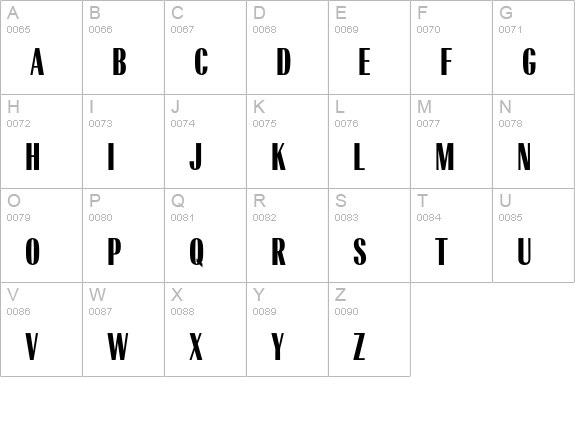
RadiantEFDisplay-CondNo4 Font Details
RadiantEFDisplay-CondNo4 font is a stunning display typeface that radiates elegance and sophistication. Its condensed design adds a touch of sleekness, making it perfect for headlines, titles, and branding projects. With its clean lines and modern aesthetic, this font is sure to make a bold statement. What makes RadiantEFDisplay-CondNo4 font even more appealing is the fact that it is free. That's right, you can download this incredible font at no cost at FontsMarket.com. Whether you're a designer, a blogger, or simply someone who appreciates beautiful typography, this font is a must-have in your collection. With its wide range of characters and glyphs, RadiantEFDisplay-CondNo4 font offers versatility and flexibility. From uppercase letters to punctuation marks, this font has all the essentials to bring your creative projects to life. Its balanced proportions and carefully crafted curves create a harmonious composition that is pleasing to the eye. RadiantEFDisplay-CondNo4 font is designed with readability in mind, ensuring that your message will be clearly communicated to your audience. Whether you're designing a poster, a website, or a magazine spread, this font will add a touch of sophistication and professionalism to your project. So why wait? Download RadiantEFDisplay-CondNo4 font today from FontsMarket.com and let your creativity shine. With its stunning design and the added bonus of being free, this font is a true gem that should not be missed.